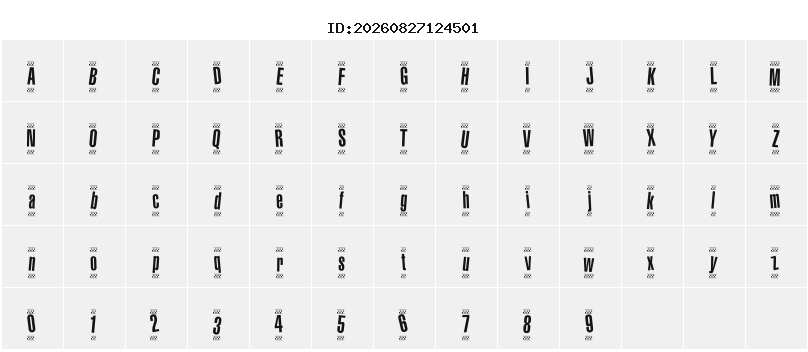
• Font Name: 1980 Portable
• Full Font Name: 1980 Portable
• Designer: Ray Larabie
• Manufacturer: Larabie Fonts
About 1980 Portable.ttf
1980 Portable.ttf is a modern, elegant sans-serif font designed for ultimate readability and visual harmony. Perfect for branding, headlines, web design, and print materials.